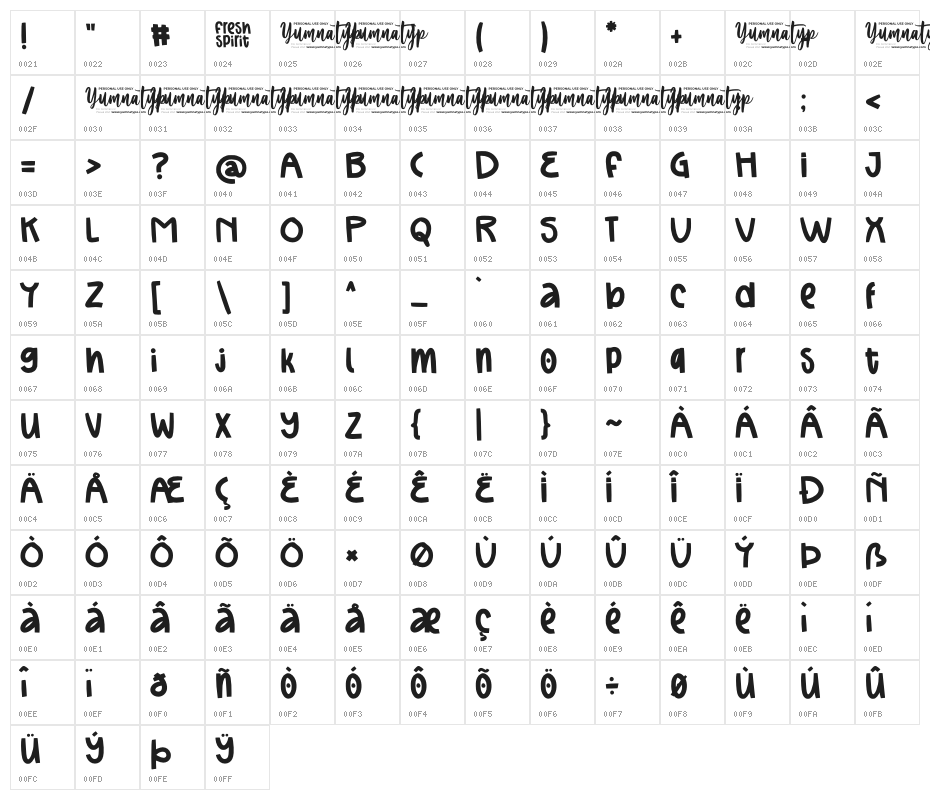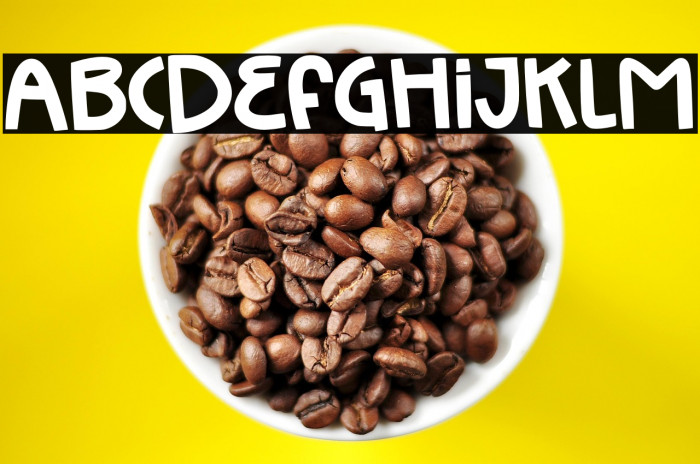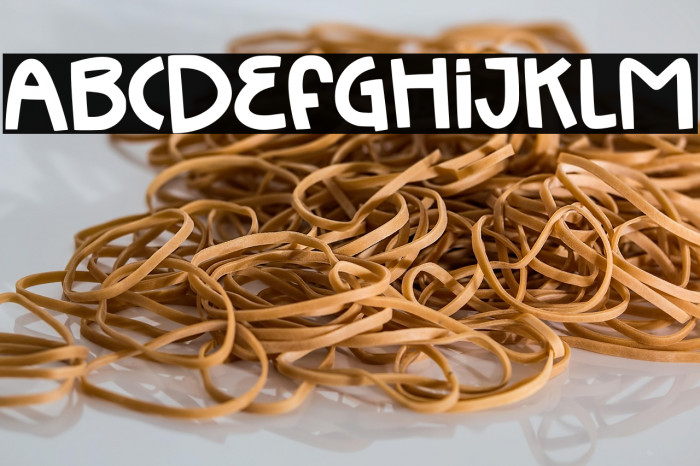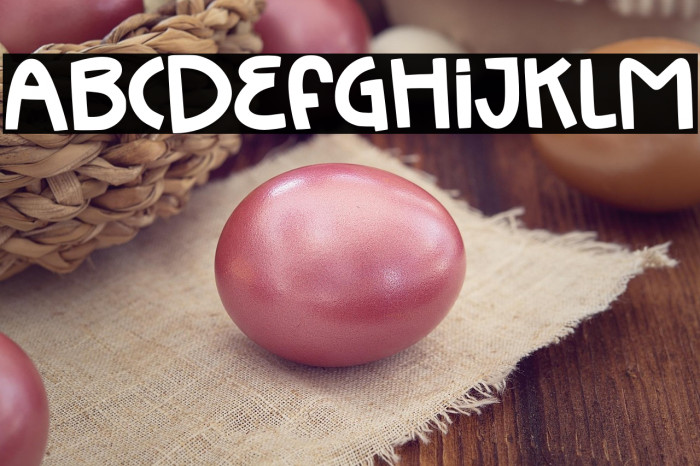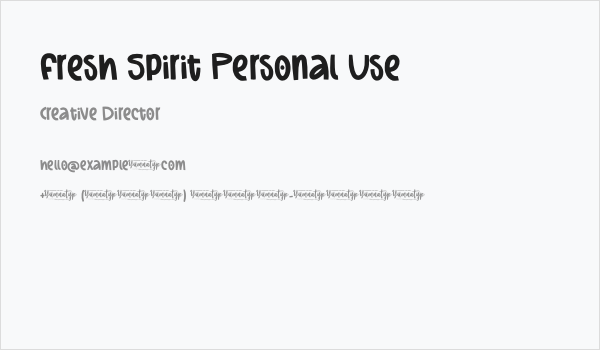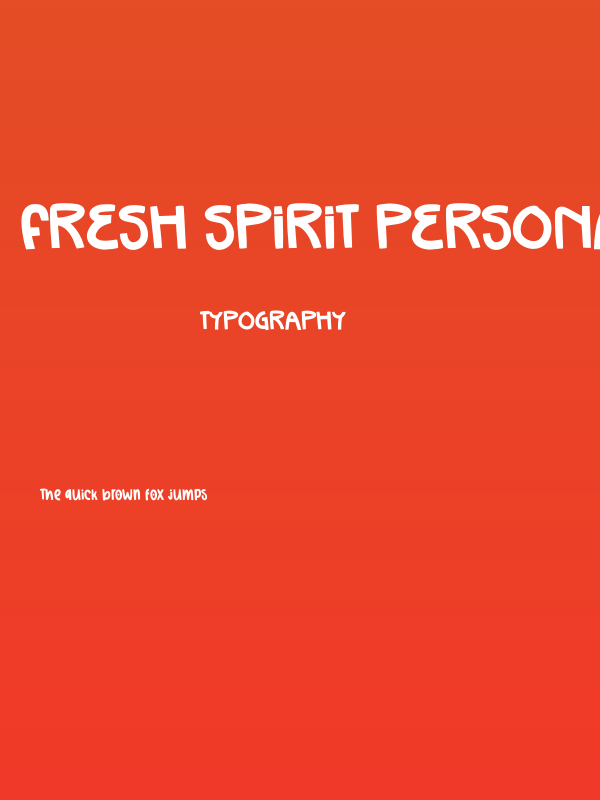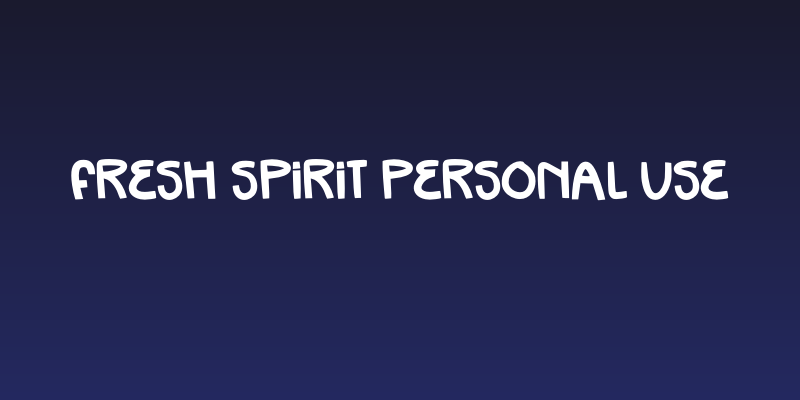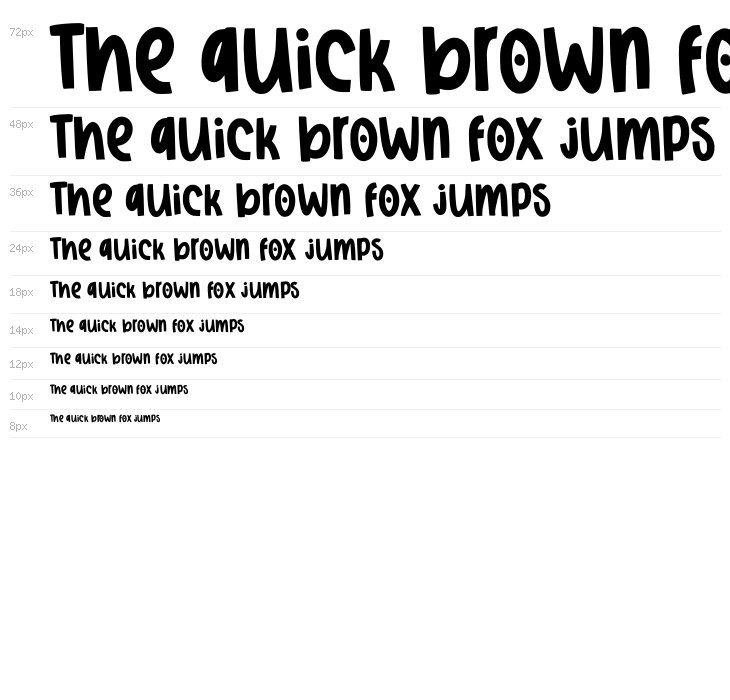
Fresh Spirit Personal Use Font
Fresh Spirit Personal Use Description
This font features a playful and bold style with a handwritten touch. The characters are rounded and slightly irregular, giving it a casual and friendly appearance. The uppercase and lowercase letters maintain a consistent flow, while the numbers and special characters complement the overall design. The strokes are thick, contributing to a strong visual presence, making it suitable for attention-grabbing designs. Its informal style is ideal for projects that require a personal and approachable feel.
| Proposed Projects | Ideal for children's book covers, playful branding, greeting cards, and social media graphics. |